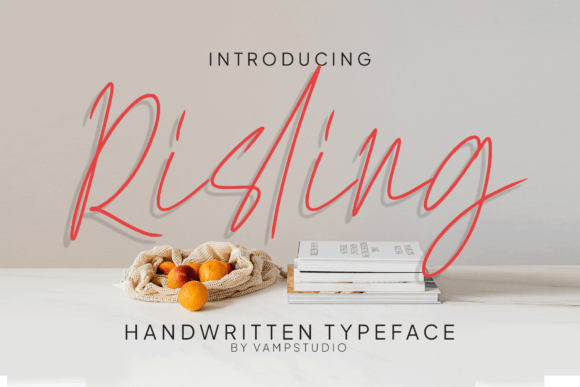
Indulge in the timeless elegance of Risling Font, a captivating script font that will transform your creative projects into masterpieces. Step into a world of refined beauty, where your words dance with grace and fluidity.
With Risling Font, you'll discover endless possibilities for self-expression. Its meticulously crafted curves evoke a sense of handwritten charm, making it the perfect choice for adding a personal touch to your digital creations. Let your words flow effortlessly, capturing the essence of romance, sophistication, and elegance.
Unleash your imagination and explore the diverse applications of Risling Font. Elevate your photography with enchanting watermarks, leaving a lasting impression on your audience. Craft social media posts that captivate and engage, ensuring your message stands out from the crowd. Create advertisements that resonate with your target audience, leaving a lasting impression that drives conversions.
Design logos and branding that exude professionalism and creativity, building a strong brand identity that speaks volumes about your values and aspirations. Create invitations that evoke a sense of anticipation and excitement, setting the tone for unforgettable events. Craft product designs that exude elegance and sophistication, making your products irresistible to discerning customers.
Envision the possibilities as you design labels that command attention on shelves, enhancing the appeal of your products and attracting customers' attention. Create custom stationery that reflects your unique personality, making a statement with every letter you write. Design wedding invitations that capture the essence of love and commitment, creating a lasting memory for your special day. Unleash your creativity in product packaging designs that leave a lasting impression, ensuring your products stand out from the competition.
Risling Font adds a touch of magic to special events, transforming ordinary moments into extraordinary memories. Whether you're designing posters for concerts and art shows or creating invitations for milestone celebrations, Risling Font will elevate your designs to new heights.